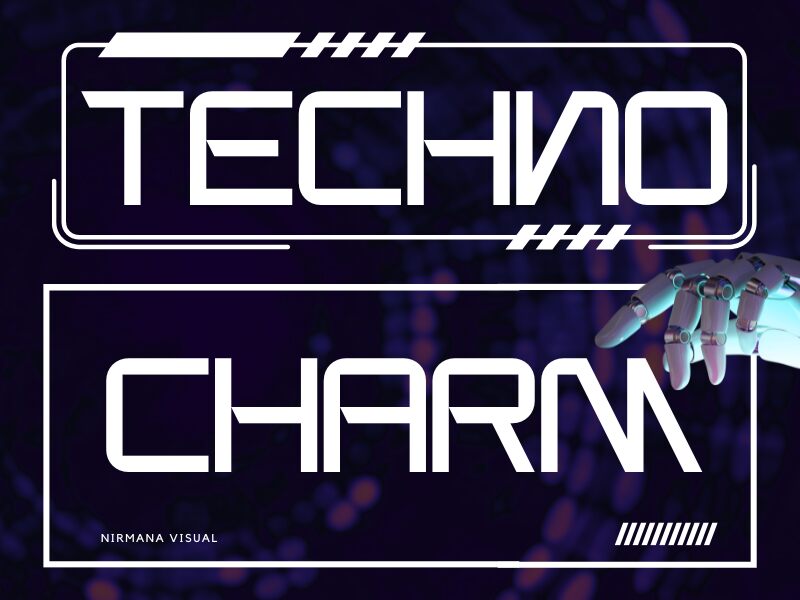
Techno Charm, a captivating display font created by the renowned designer Nirmana Visual, exudes a futuristic allure that commands attention. With its sharp, angular letterforms and sleek, minimalist aesthetic, this font conveys a bold, contemporary vibe that is both visually striking and subtly sophisticated. The unique balance of clean lines and subtle geometric elements lends Techno Charm a truly distinctive character, making it an exceptional choice for projects seeking to evoke a sense of technological advancement and cutting-edge modernity.
Techno Charm's versatility shines through its ability to seamlessly integrate into a diverse range of design applications, from eye-catching headlines and logos to dynamic user interfaces and digital presentations. Its futuristic flair and impactful presence make it an ideal selection for branding initiatives, product packaging, and promotional materials that aim to captivate audiences with a futuristic and technologically-driven aesthetic.